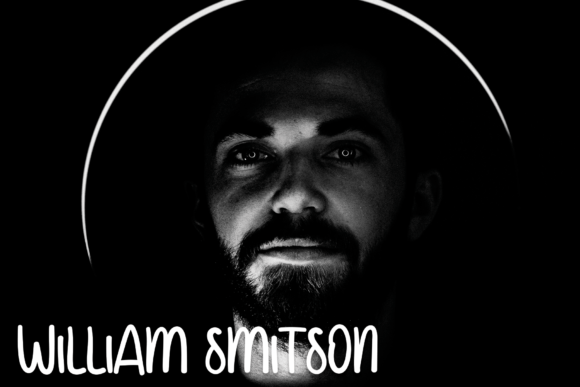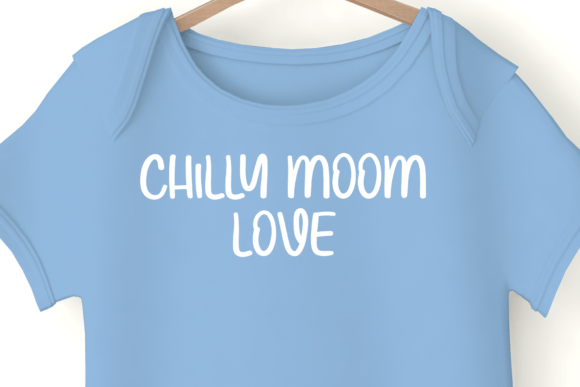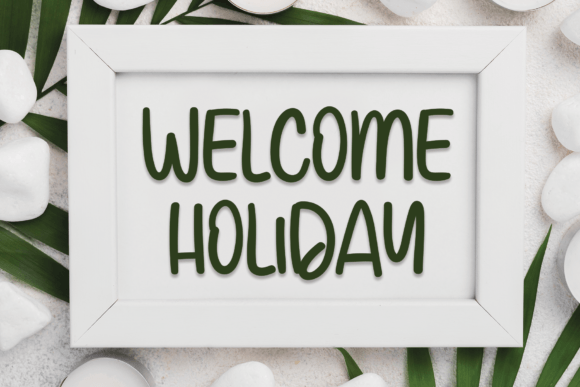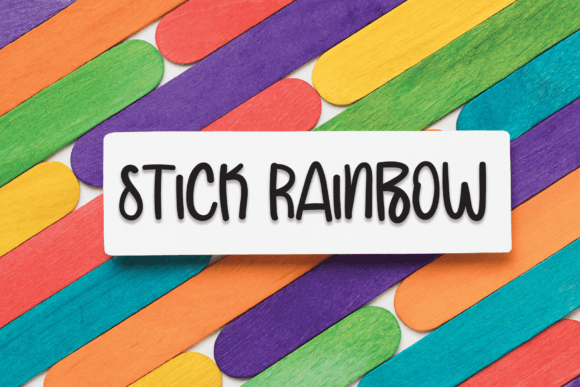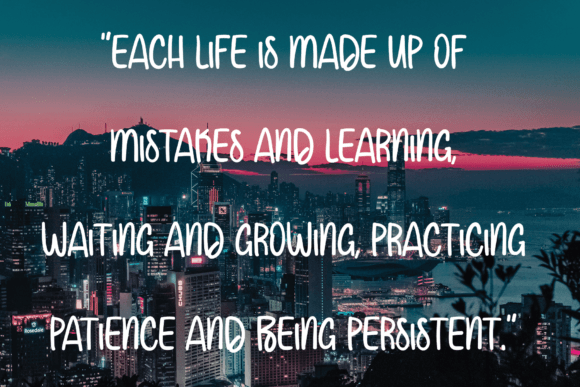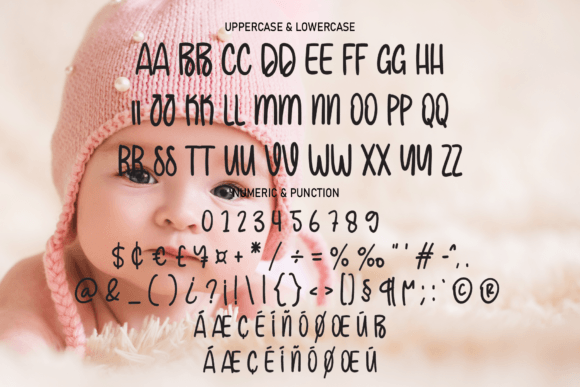
The Birth of a New Era in Typography: Baby Chubby Font
Remember the moment when a doodle on a notepad turned into a masterpiece? That’s exactly what happened with the creation of the Baby Chubby Font. This adorable handwritten style lettering has captured the hearts of designers worldwide, and for good reason.
Developed with the intention of adding a touch of personality to any project, Baby Chubby Font is a versatile tool for creatives. Whether you’re designing wedding invitations, social media post logos, or product packaging, this font is the perfect accompaniment to bring your vision to life. Its unique, handwritten style lends an air of sophistication and charm to any design, making it a valuable asset for designers seeking to elevate their work.
Baby Chubby Font Key Features
- Font Family: Baby Chubby Font is a unique, handwritten font designed to resemble the imperfections of a child’s handwriting.
- Unique Characteristics: Baby Chubby Font features a distinctive, playful style with varying line widths, irregular letterforms, and a touch of whimsy, making it perfect for creating eye-catching designs.
- Style Variations: The font includes multiple style variations, including regular, bold, italic, and bold italic, allowing designers to experiment with different looks and feels.
Baby Chubby Font Review
Overall, I’d say the Baby Chubby Font is a sweet addition to any designer’s toolkit. ✨ The rounded edges and playful feel make it perfect for projects that need a touch of whimsy. It’s especially great for kids’ books, nursery decor, or any other design that requires a youthful vibe.
- ✨ Unique and fun design that stands out in a crowd
- ✨ Versatile font that can be used for various projects and styles
- ✨ Great for projects that need a soft, gentle feel
- ⚠️ Limited to uppercase and lowercase letters only (no punctuation or special characters)
- ⚠️ Some letters may not be as legible at smaller font sizes
- ⚠️ Not ideal for formal or professional projects
In conclusion, the Baby Chubby Font is a fun and playful addition to any designer’s toolkit. While it may have some limitations, its unique design and versatility make it a great choice for projects that require a touch of whimsy. Just be sure to use it in moderation and for the right type of project.
Tips for Getting the Most Out of Baby Chubby Font
Use Baby Chubby Font for creative projects, such as invitations, party decorations, and social media graphics. Experiment with different font sizes and colors to create a playful and eye-catching design. Consider pairing Baby Chubby Font with other fun, playful fonts for a cohesive look.
Baby Chubby Font is perfect for:
- Social media graphics for kids and family-friendly brands
- Food and drink labels for fun, playful products
- Party and event promotions
Alternatives to Baby Chubby Font
Great Vibes Font is a script font that features a casual, handwritten feel. It’s perfect for creating a friendly and approachable tone in your designs. It’s similar to Baby Chubby Font in its playful and informal nature, but has a more refined and elegant feel.
Carolyna Pro Font is a modern script font that features a mix of elegant and playful elements. It’s ideal for creating a sophisticated and feminine tone in your designs. Compared to Baby Chubby Font, Carolyna Pro Font has a more polished and refined look, making it suitable for high-end branding and packaging designs.
Alex Brush Font is a beautiful script font that features a elegant and refined feel. It’s perfect for creating a sophisticated and luxurious tone in your designs. While Baby Chubby Font has a more playful and casual feel, Alex Brush Font has a more formal and elegant look, making it suitable for high-end branding and editorial designs.